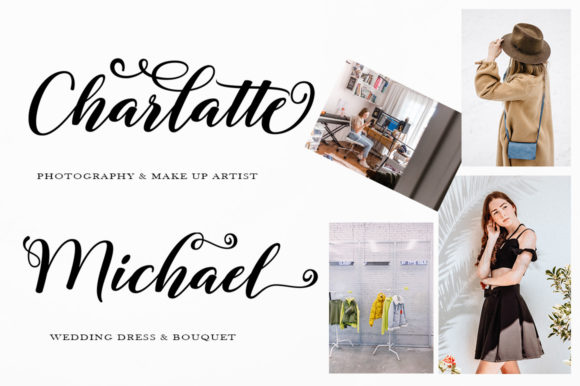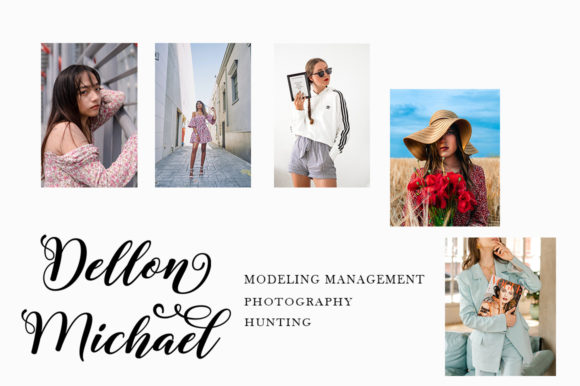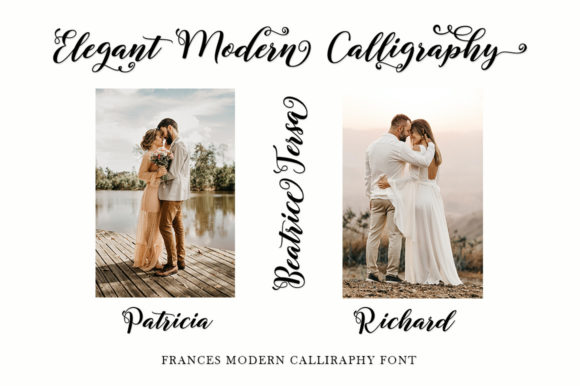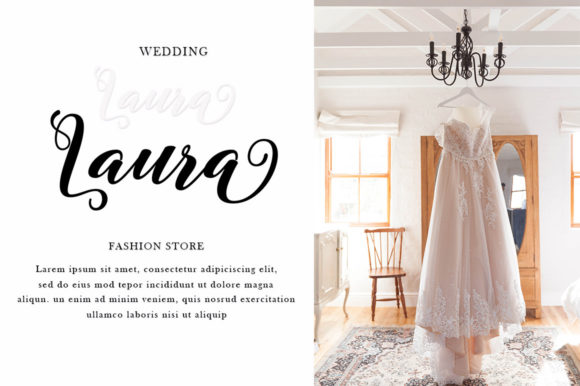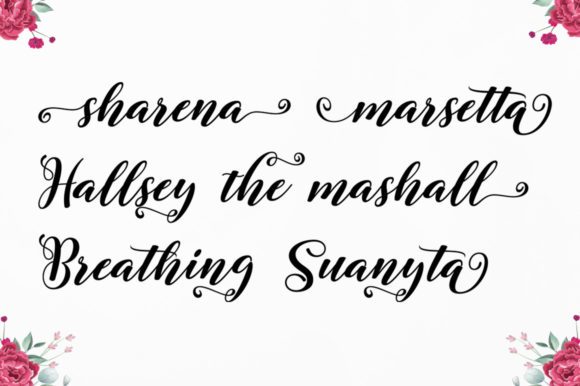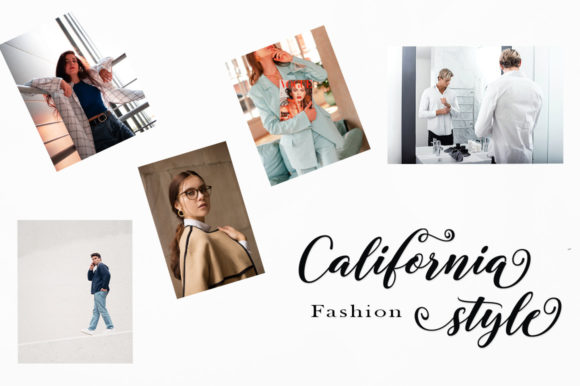
Introducing Complain Script Font: Elevate Your Designs with Elegance
In the world of typography, a font can make or break a design. For designers and crafters seeking to add a touch of sophistication and elegance to their creations, Complain Script Font is an exceptional choice. This ravishing script font is meticulously crafted with high attention to detail, making it a valuable addition to any font library.
The Beauty of Complain Script Font
Complain Script Font stands out for its neat and highly detailed design. Its elegant strokes and beautiful swashes can instantly elevate any project, from invitations and greeting cards to branding and advertising materials. The font’s versatility allows it to complement a wide range of topics and themes, making it an excellent asset for designers who work on diverse projects.
Why Choose Complain Script Font?
There are several reasons why Complain Script Font should be a part of your font collection:
- Elegant Design: The font’s elegant and detailed design makes it perfect for projects that require a touch of sophistication.
- Versatility: Complain Script Font can be used across various design projects, from digital content to print materials.
- Highly Detailed: The font’s high level of detail ensures that it looks great in both digital and print formats.
Applications of Complain Script Font
The applications of Complain Script Font are vast and varied. Here are a few ideas to get you started:
- Wedding Invitations: Add a touch of romance and elegance to wedding invitations and related stationery.
- Branding and Logo Design: Use Complain Script Font to create unique and memorable brand identities.
- Digital Marketing: Enhance your digital content, such as blog posts, social media graphics, and email newsletters, with this beautiful script font.
- Crafting and DIY Projects: Perfect for crafters, the font can be used in various DIY projects, including handmade cards, scrapbooking, and more.
Tips for Using Complain Script Font
To make the most of Complain Script Font, consider the following tips:
- Pair with Other Fonts: Combine Complain Script Font with complementary fonts to create visually appealing and balanced designs.
- Experiment with Sizes and Colors: Play around with different sizes and colors to find the perfect combination for your project.
- Utilize Swashes and Glyphs: Take advantage of the font’s swashes and glyphs to add unique touches to your designs.
Complain Script Font is a stunning script font that can elevate any design project with its elegance and versatility. Its detailed craftsmanship, PUA encoding, and wide range of applications make it an excellent choice for designers and crafters alike. Whether you’re working on a wedding invitation, a branding project, or a DIY craft, Complain Script Font is sure to enhance your creations and leave a lasting impression.